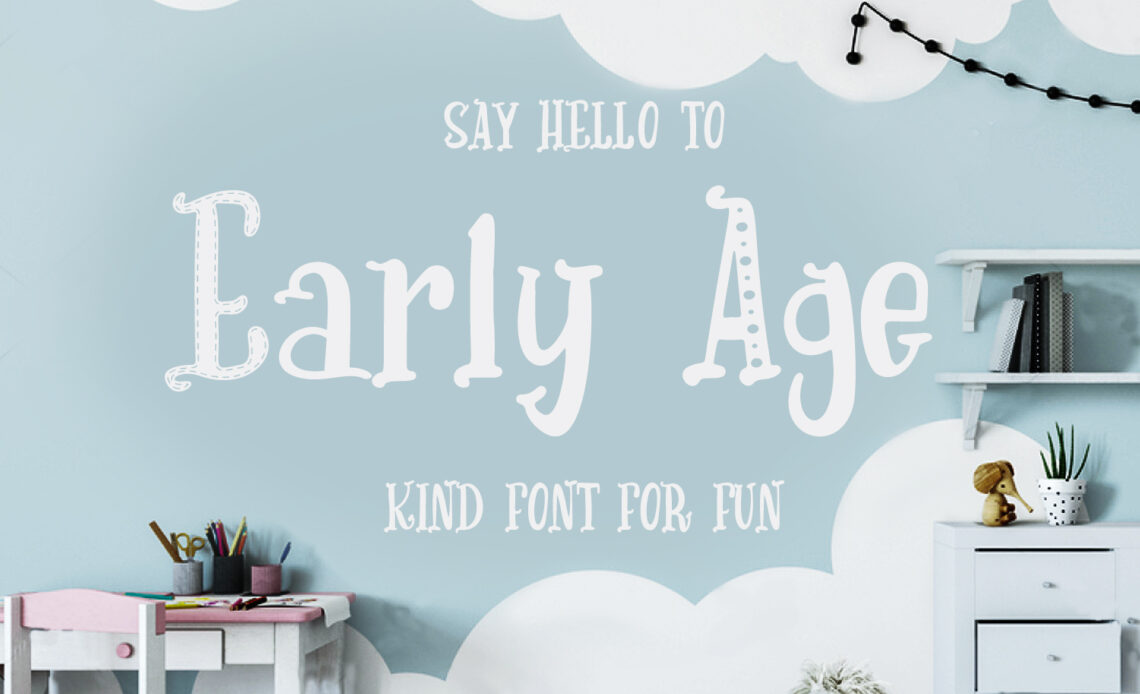
Early Age Font
Step into the world of Early Age Font, a display font family that radiates joy and individuality. Created by the talented tregubova.jul, this handwritten font captures the essence of youthful playfulness, making it the perfect choice for adding a touch of whimsy to your designs.
With Early Age Font, your creations will exude a sense of warmth and familiarity that resonates with audiences of all ages. Whether you're designing children's books, invitations, greeting cards, or social media posts, this font will effortlessly elevate your work and make it stand out from the crowd.
As you explore the depths of Early Age Font's character set, you'll discover a treasure trove of charming glyphs and ligatures that dance harmoniously together. Each letterform is meticulously crafted to evoke a sense of childlike wonder and imagination, inviting you to embrace your creativity and let your artistic spirit soar.
Unleash the boundless possibilities of Early Age Font and watch as your designs blossom with vibrant energy and personality. It's the perfect font for projects that call for a touch of lightheartedness and fun, inviting viewers to embark on a captivating journey through your creative vision.
So, dive headfirst into the realm of Early Age Font and let your imagination run wild. Allow your creativity to flourish as you craft designs that capture the essence of joy and innocence. With this font as your ally, you'll create masterpieces that resonate with audiences, leaving an indelible mark on their hearts and minds.